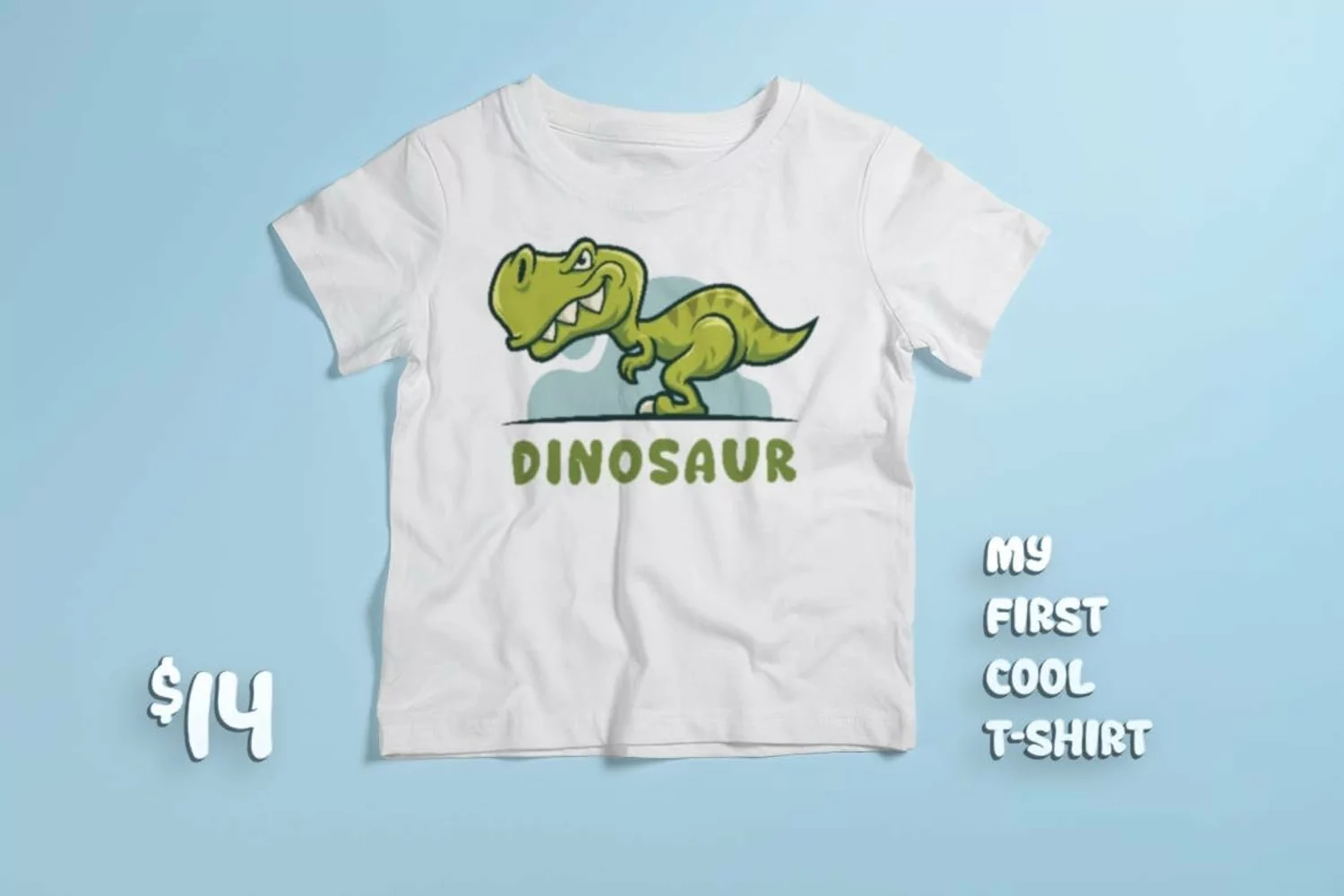
Cocola kids font is an all caps style gaming font, with a funny and happy feelings all around it, and it’s a bubble shape font as well..
Suit perfectly for Online Games, poster, movie title, fast food menu, magazine, youtube covers, youtube thumbnails, social media page covers and so on…